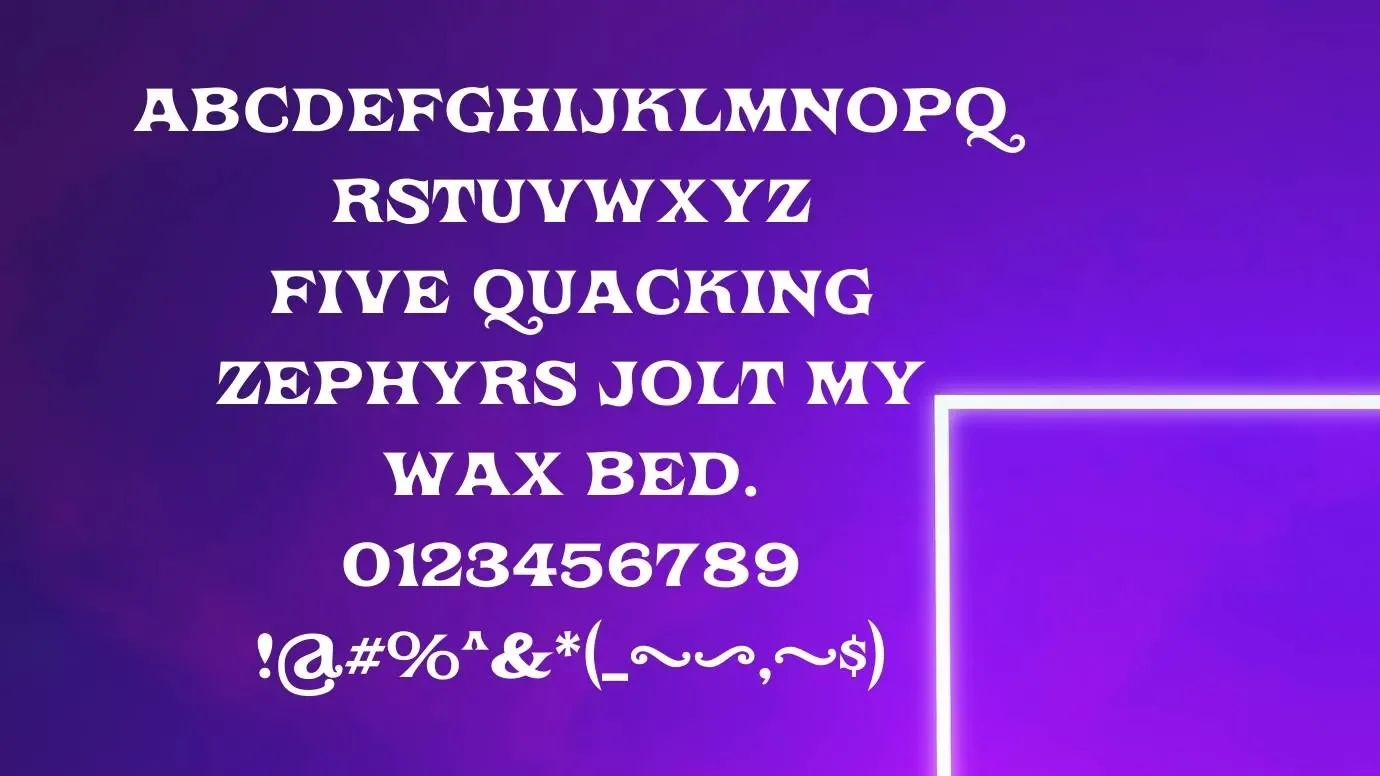
Introducing Astro World Font! ASTROWORLD is an American third studio album that was founded in 2018. The font that we are going to discuss was used for the first time in the logo design of this studio. This font as soon as designed to be noisy, extreme, and crowd-fascinating.
This attractive font comes in the fancy category and it is perfect for use in the creation of stylish brochure layouts, booklet covers, editorial paintings, selling, and further related purposes. It has more than 100 stylish characters that are best for the fascinating results of your project.
This font was designed by Nine Club Studio. It has many alternatives that are great for pairing with it but the judas priest font is the best alternative to this typeface.
Many bodybuilders make tattoos designed on their bodies in the style of this font. This is a scratchy script font that is best for amazing designs. It is best for HTML. It has a copy and pastes function. This font is also perfect for use on Instagram, Twitter, and other social media accounts for designing services.
Reason to Use Astro World Font
The value of this stunning typeface is increasing day after day. All companies use this font family for many creative projects such as product packaging, vehicle wraps, clothes designs, and many other things.
It is best for use in various types of thumbnails and art channels. It is widely used for Adobe products and Canva. You can use this typeface for public transportation systems. It is also used for various other projects like creating logos, making social media posts, designing presentations, and so on.
It is useful for graphic design projects also. If you want to achieve the attention of your clients then use candice font by making a pairing with this marvelous font family. You can also use it in official projects like keeping and maintaining records.
What type of font is Astro World Font?
This beautiful typeface is a fancy font and it was designed and shared by Nine Club Studio.